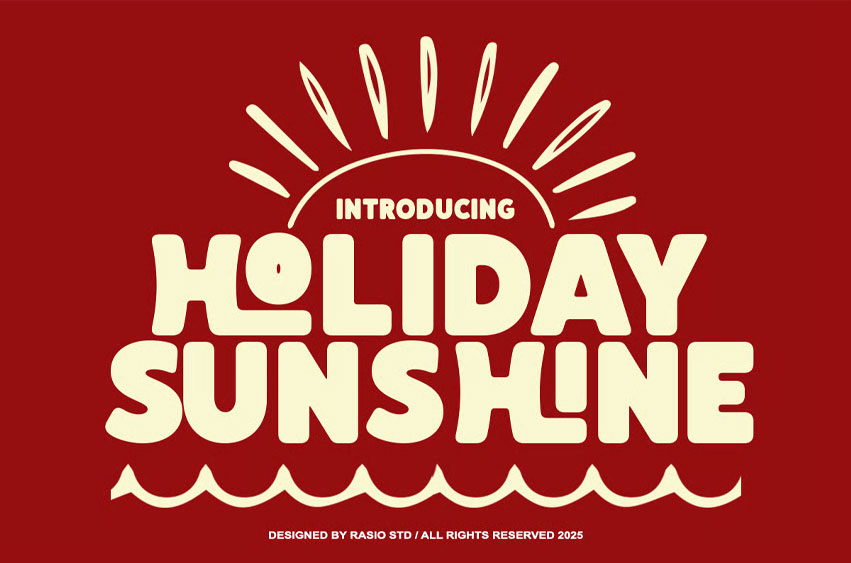
Holiday Sunshine Font
Holiday Sunshine Font is a bold playful sans-serif font radiating cheerful summer vibes and retro character. Its soft-rounded edges and thick geometric structure create a friendly and fun aesthetic, perfect for designs that want to feel bright, positive, and eye-catching. With unique ligatures and balanced proportions, this font brings warmth and energy to every layout.
Designed with strong legibility and personality, Holiday Sunshine delivers a joyful tone that stands out across modern and vintage themes alike. Its smooth curves and bold presence make it perfect for creating impactful headlines, logo designs, and vibrant display titles.
Relevance and Use Cases is perfect for summer posters, kids’ branding, social media visuals, packaging design, travel campaigns, creative merchandise, retro-inspired titles, and cheerful promotional materials that need a strong and happy visual personality.
Bring joyful energy to your next project with Holiday Sunshine Sans Serif Font — a bold, rounded, and playful typeface made to brighten up your creative designs with warmth and personality.